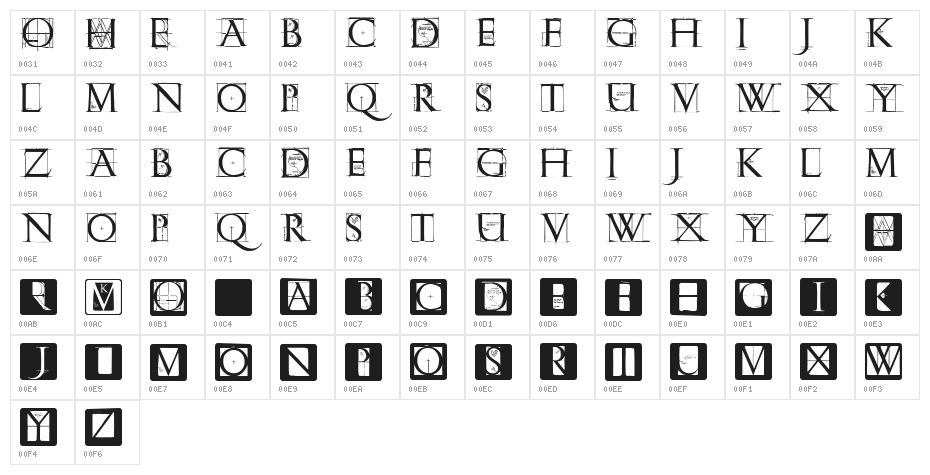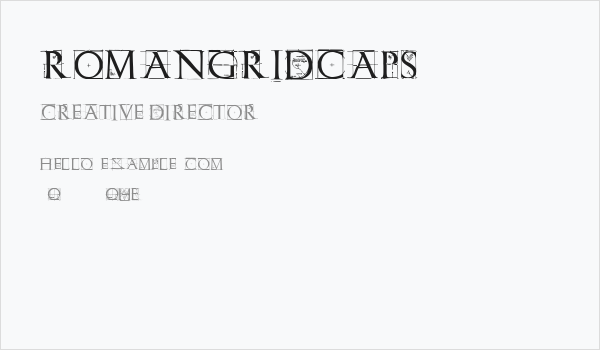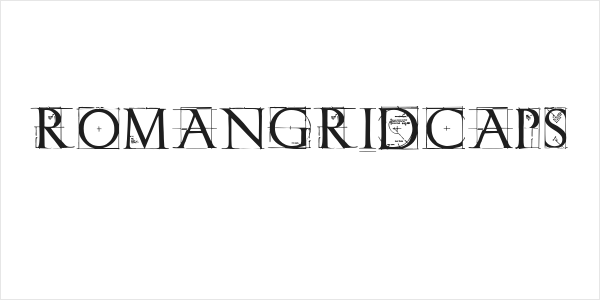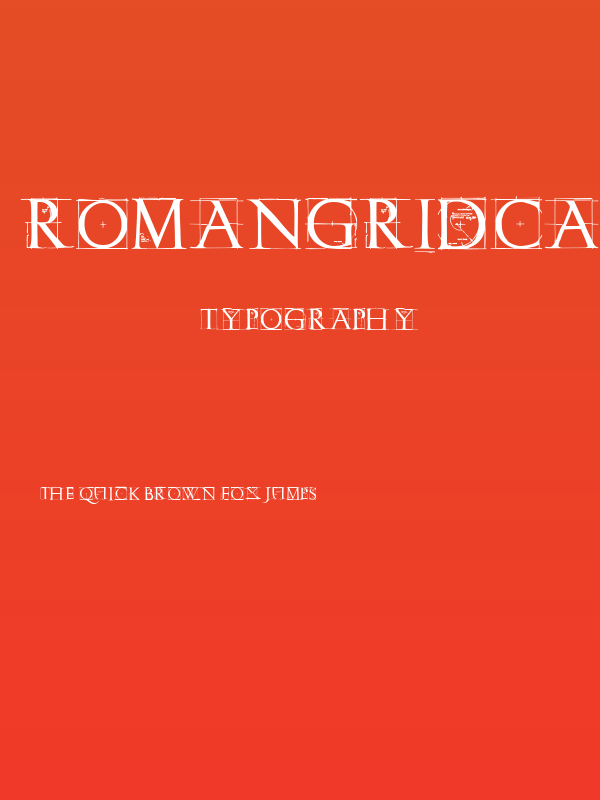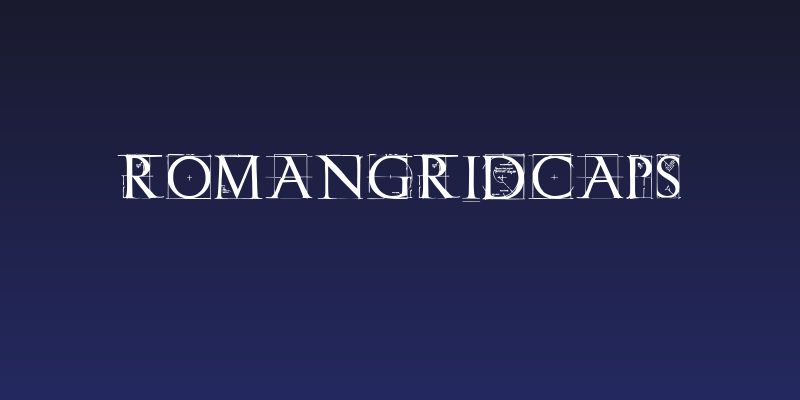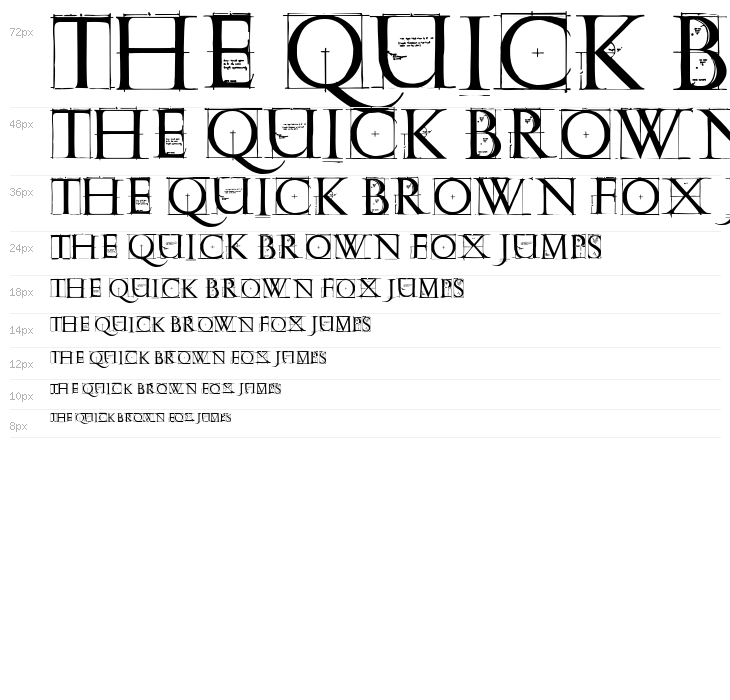
RomanGridCaps Font
RomanGridCaps Description
This font features a classic and structured design, reminiscent of Roman architectural elements. Each letter is meticulously crafted within a grid, emphasizing precision and symmetry. The strokes are bold and consistent, with a high contrast between thick and thin lines, giving it a strong and authoritative appearance. The serifs are pronounced, adding to the traditional and formal aesthetic. This font is ideal for projects that require a touch of elegance and historical reference, such as formal invitations, certificates, or branding that seeks to convey a sense of heritage and stability.
| Proposed Projects | Ideal for formal invitations, certificates, branding with a heritage theme, or any project requiring a classic and authoritative look. |